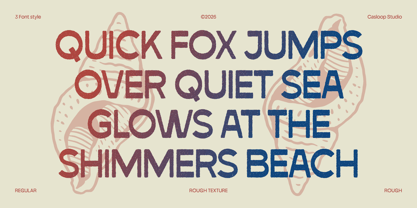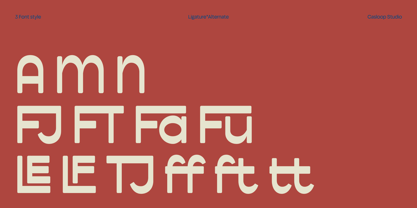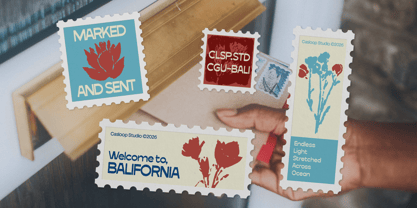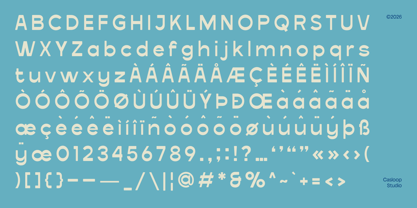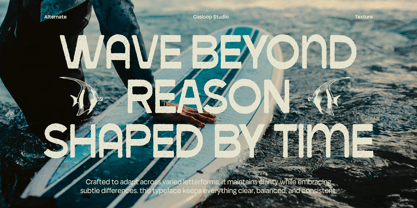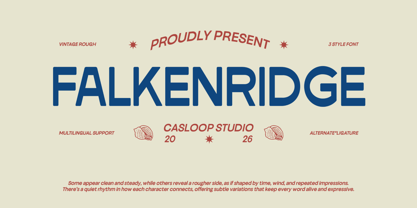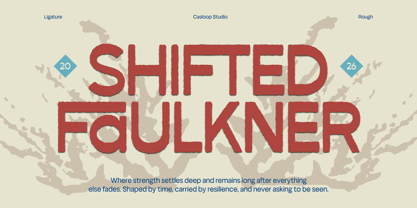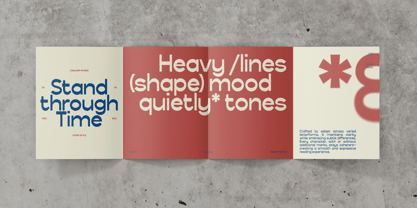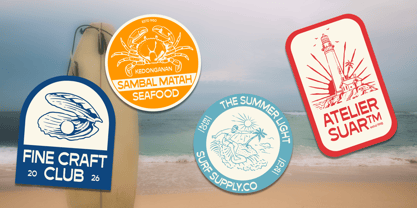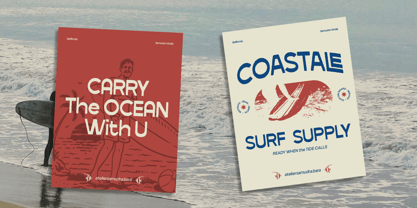
Falkenridge
by Casloop Studio
The Falkenridge Font Family was designed by Wantara Putra and published by Casloop Studio. Falkenridge contains 3 styles and family package options. More about this family
Falkenridge is a vintage rough display font inspired by classic American signage and worn print textures, delivering a bold yet authentic visual presence. Its standout characters A, R, K, S, and G are built with solid structures and subtly rounded edges, intentionally avoiding perfect precision to create a natural, weathered feel. The slightly uneven stroke rhythm adds a sense of age and texture, giving the typeface a lived-in personality that feels both stable and expressive. This makes Falkenridge ideal for badges, posters, stamps, adventure-themed branding, and headline designs that aim to capture a raw, nostalgic, and timeless spirit. Recommended pairing with Oswald, Bebas Neue, Roboto Slab, Franklin Gothic, Trade Gothic, Rockwell